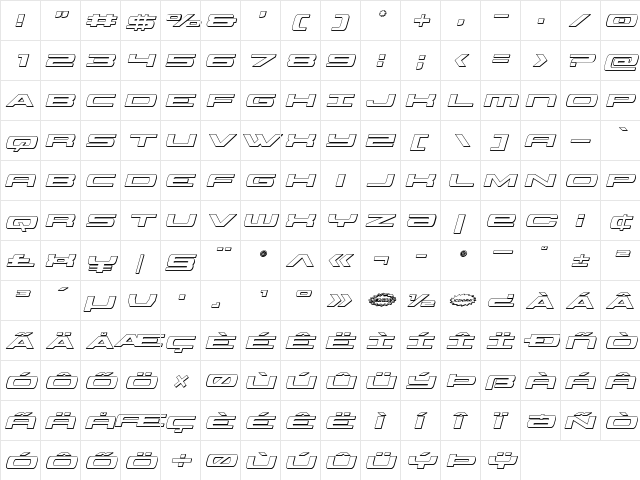
Classic Cobra 3D Italic Italic
Design Context for Classic Cobra 3D Italic Typeface
Classic Cobra 3D Italic has the warm character of retro typography — evoking diners, record sleeves, and the golden age of print advertising. The slanted form adds forward momentum and visual energy.
Font Pairing: Combine Classic Cobra 3D Italic with a simple slab or neutral sans — period-accurate companions reinforce the vintage feel without competing for attention.
Pro Tip: Use Classic Cobra 3D Italic for headlines and pull quotes rather than body copy — its personality is best appreciated in short, focused bursts.